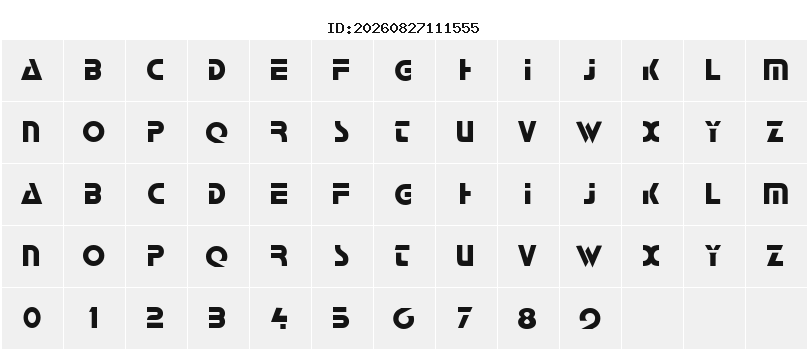
About 265-CAI978.ttf
265-CAI978.ttf is a modern, elegant sans-serif font designed for ultimate readability and visual harmony. Perfect for branding, headlines, web design, and print materials.